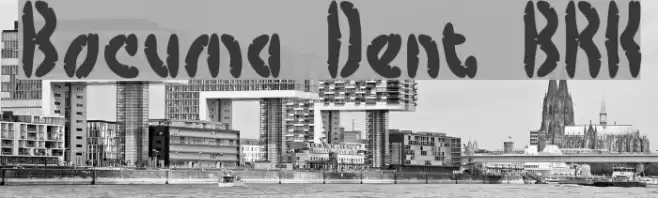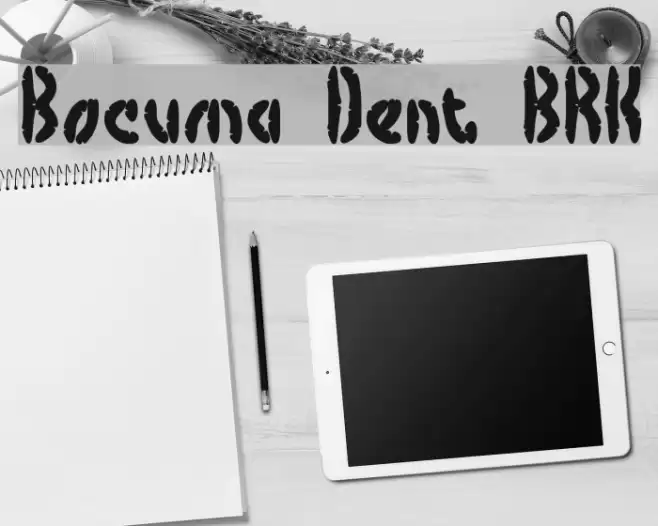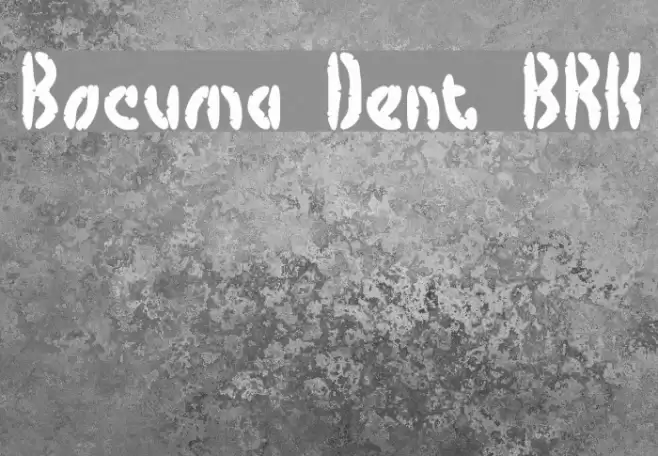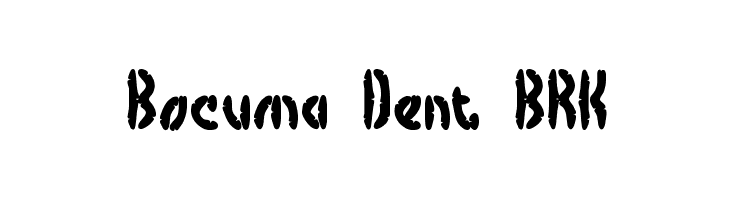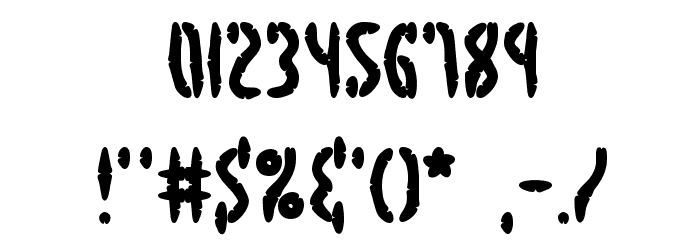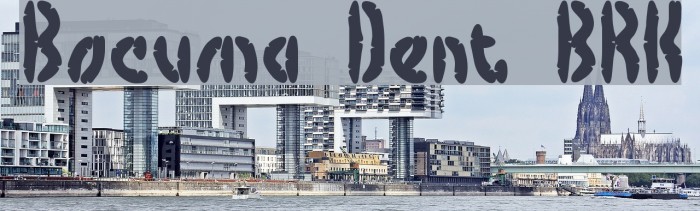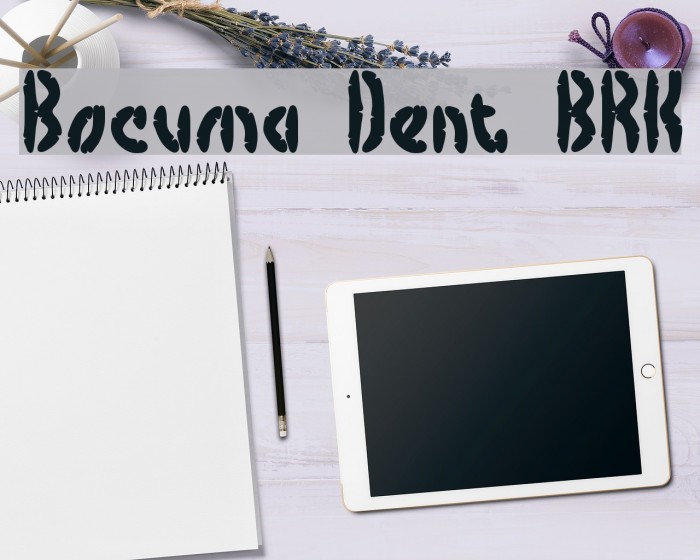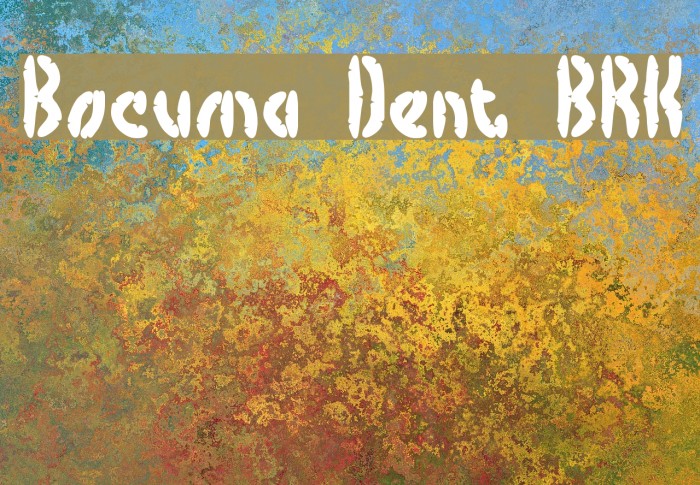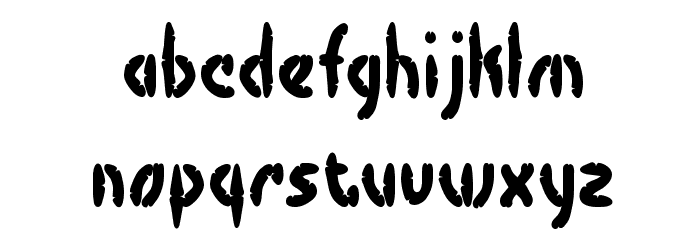
Bocuma Dent BRK Font
Bocuma Dent BRK Description
This font features a bold and expressive style with a brush-like appearance, giving it a dynamic and artistic feel. The characters are crafted with irregular edges and varying stroke thickness, creating a sense of movement and energy. The uppercase and lowercase letters maintain a consistent style, while the numerals and special characters complement the overall aesthetic. This font's unique design makes it stand out, making it suitable for creative and eye-catching projects. Its playful yet bold nature can add a distinctive touch to any design, capturing attention with its artistic flair.
A bold, brush-like font with an expressive and artistic style from Uncategorized fonts.